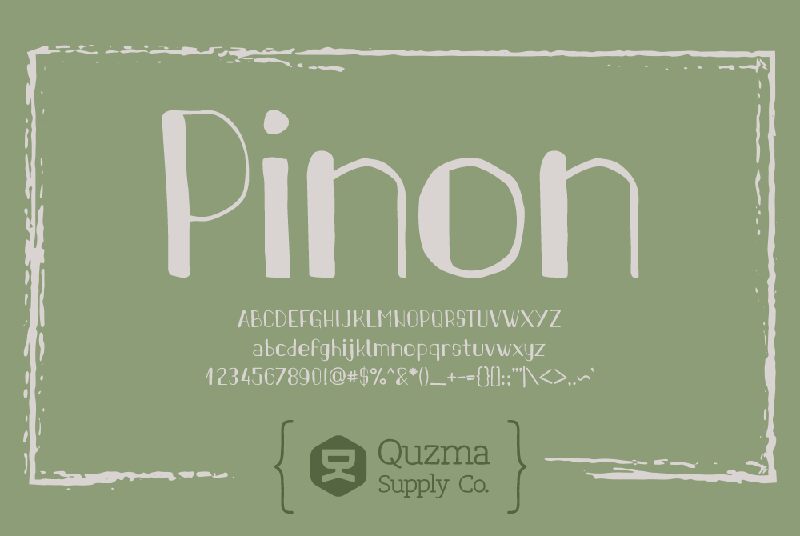
Pinon, a display font crafted by Quzma Supply Co., stands out with its bold and distinctive character. Its thick lines and playful circular forms exude a modern charm that is both assertive and friendly. The font's generous spacing and clear geometry make it not only appealing but highly readable, ensuring that any message it conveys is impactful.
The aesthetic appeal of Pinon lies in its balance between contemporary style and approachable warmth, making it a versatile choice for various creative projects. From branding to poster design, Pinon can add a touch of sophistication to your visuals while maintaining an inviting tone.
With its clean silhouette and engaging personality, Pinon promises to elevate your design work with flair and finesse. Whether you're crafting eye-catching headlines or seeking a standout typeface for graphic elements, this font offers endless possibilities to infuse your projects with modernity and style.
Pinon Free - handdrawn stylish sans serif font